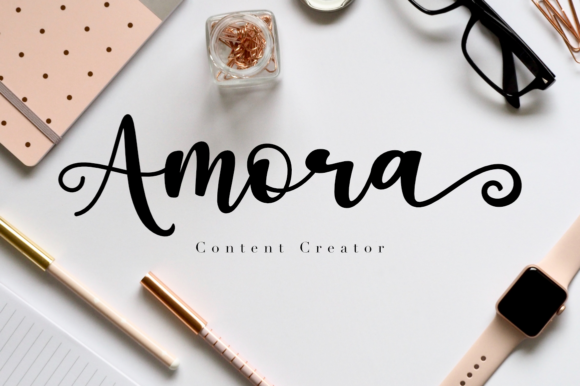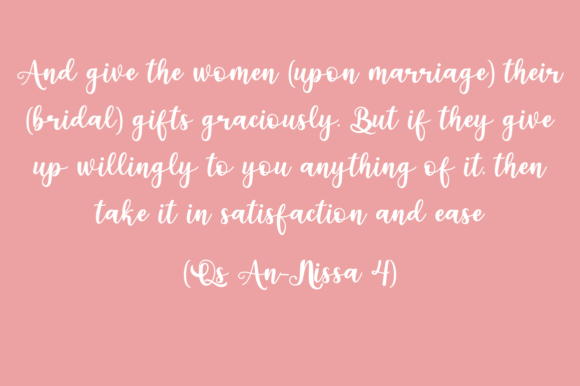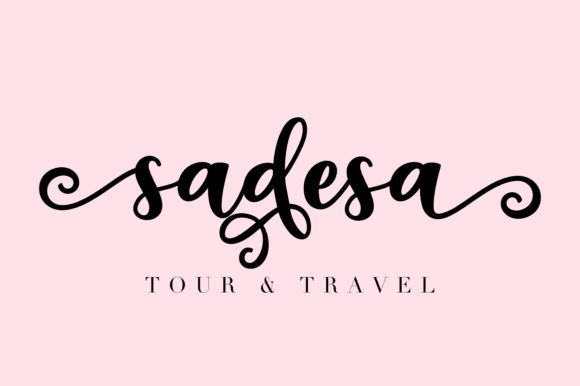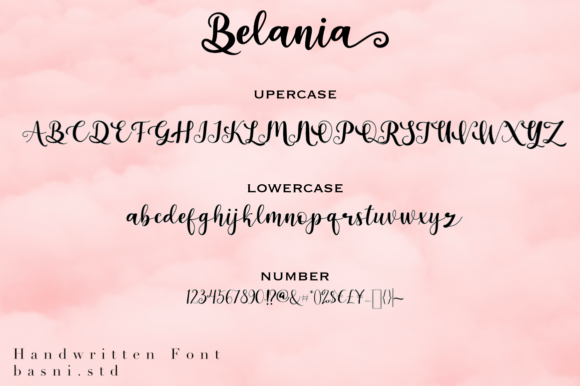
Introduction to Belania Font
Belania is a romantic calligraphy font with a playful twist that every designer should have.
It will make your designs look more elegant and stylish This font is PUA encoded which means you can access all of the amazing glyphs and ligatures with ease.